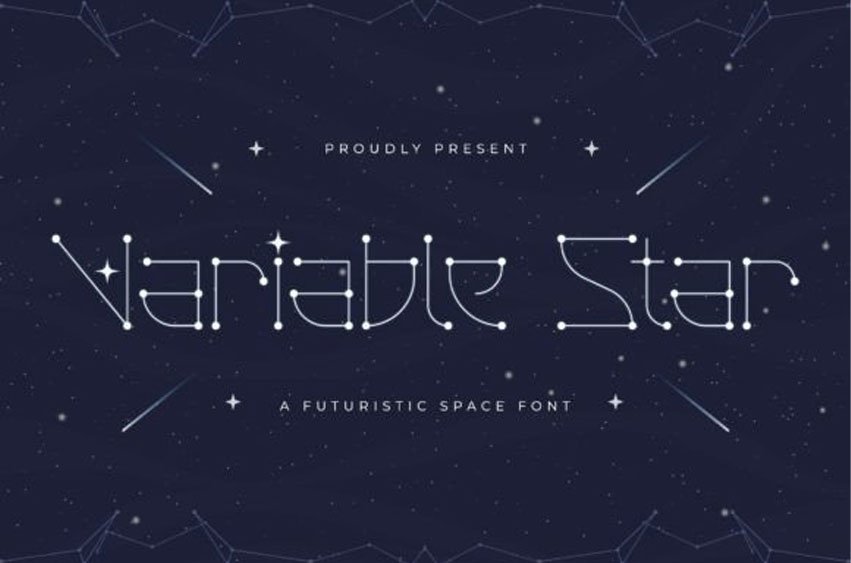
Variable Star Font is a decorative font that you can put in your designs, a fresh design with futuristic space display.
This font is here to enhance the quality of your designs.